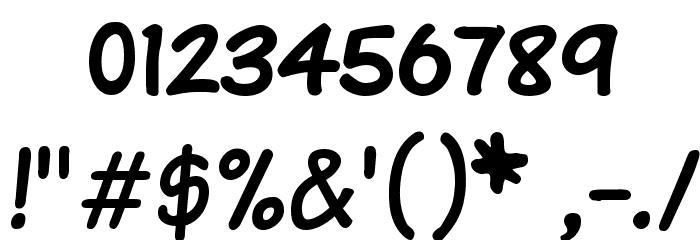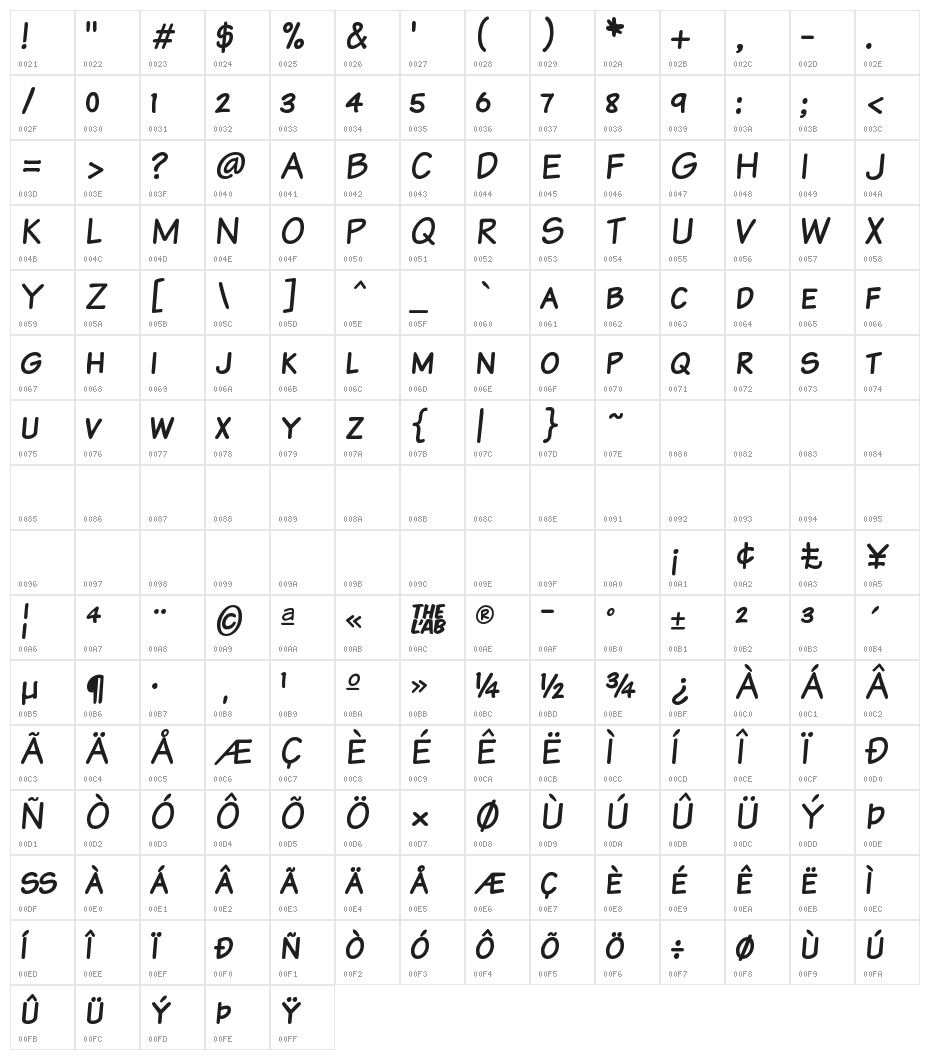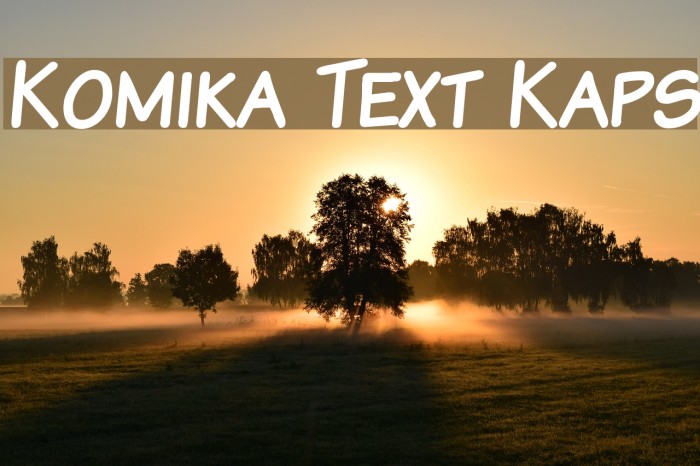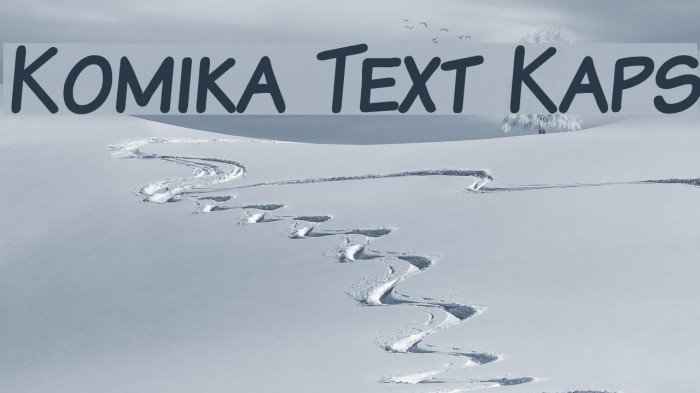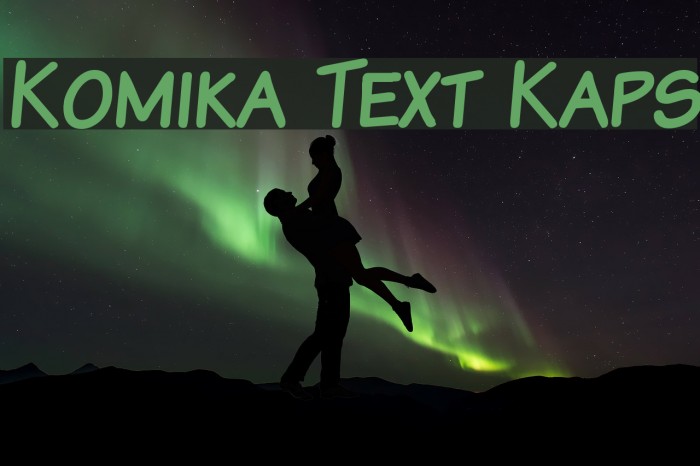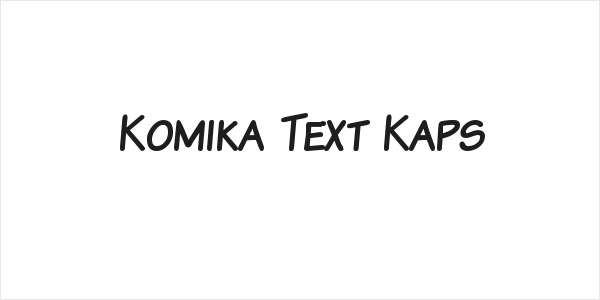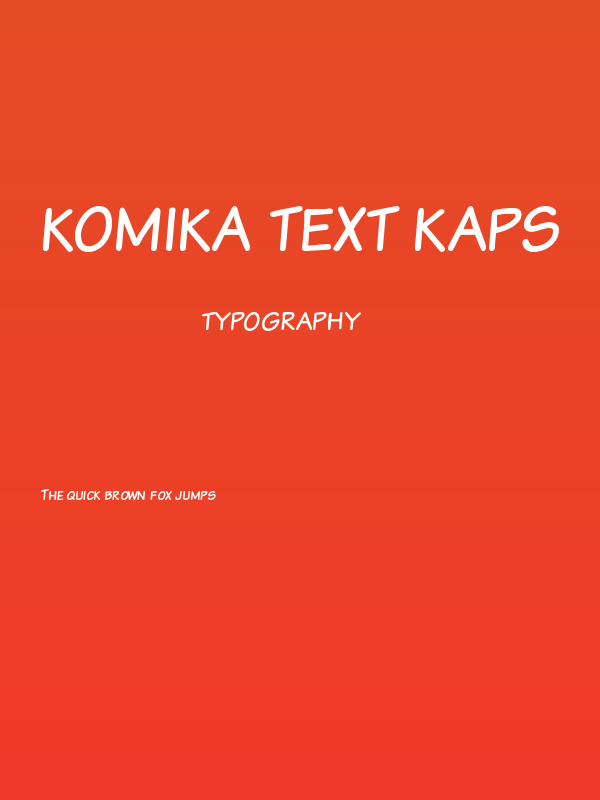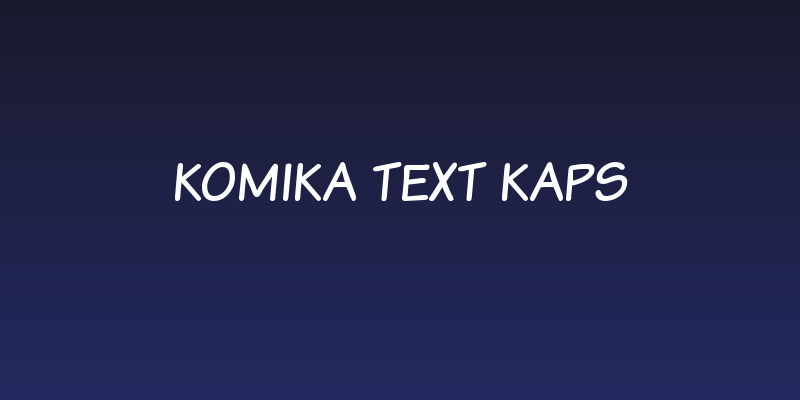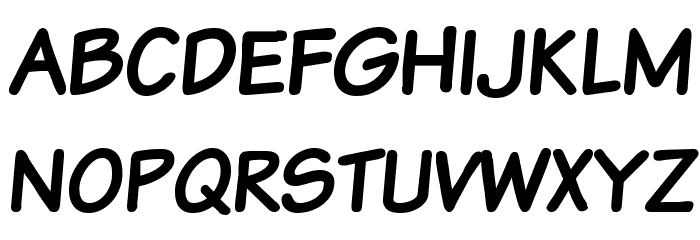
Komika Text Kaps Font
Komika Text Kaps Description
This playful and bold font features rounded, smooth edges and a slightly slanted orientation, giving it a casual and friendly appearance. The characters are well-formed with consistent stroke widths, creating a uniform look across both uppercase and lowercase letters. The numerals and special characters maintain the same playful style, making them easily readable and visually appealing. Its design is reminiscent of comic book lettering, which adds a touch of fun and whimsy to any project. The font's informal style is perfect for projects that aim to convey a sense of humor and approachability.
| Overall Style | Playful, Comic |
| Proposed Projects | Ideal for comic books, children's books, playful branding, and informal invitations. |